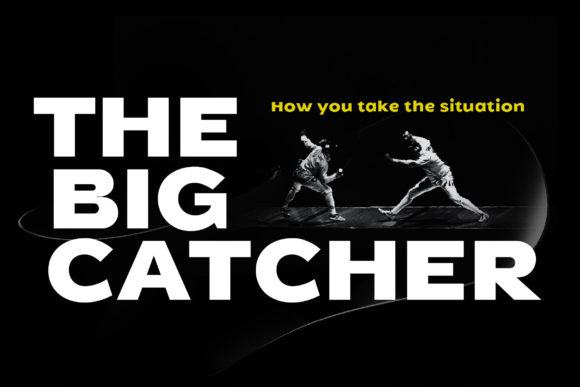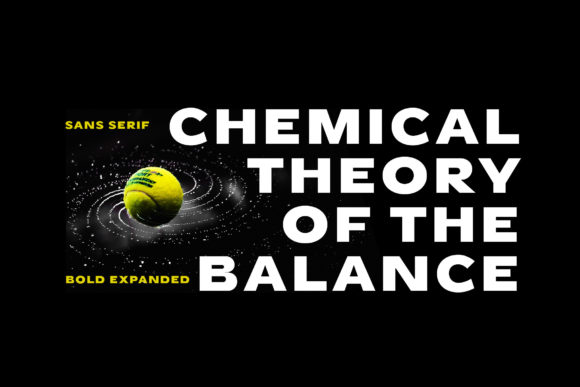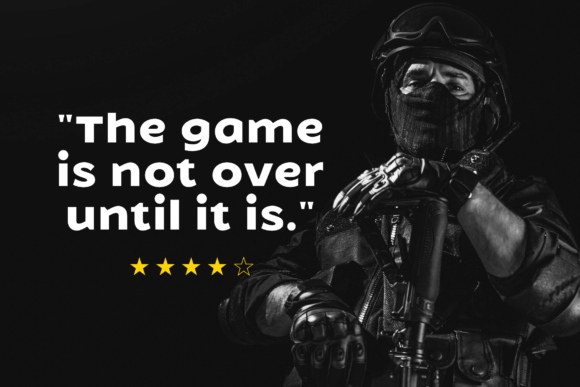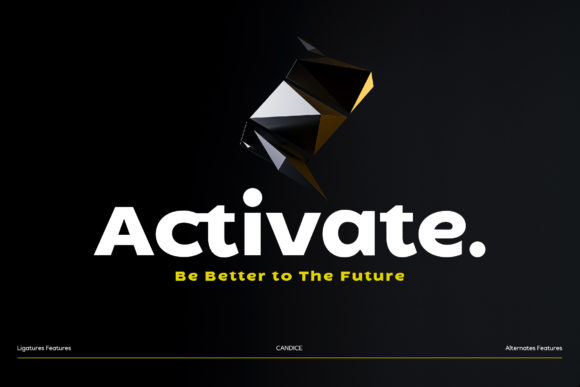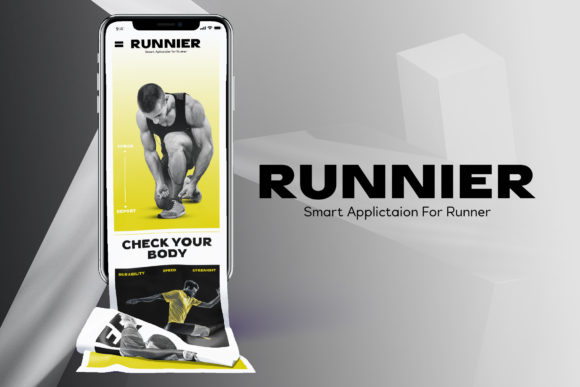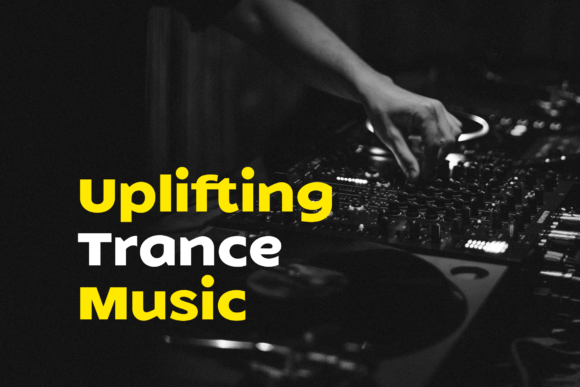
Candice Font: The Ultimate Sans Serif Display Font for Modern Designs
Are you looking for a font that can elevate your design projects to the next level? Look no further than Candice Font, a stunning sans serif display font that’s perfect for a wide range of applications. In this article, we’ll explore the features and benefits of Candice Font, and show you how it can be used to create amazing designs for your upcoming projects.
What is Candice Font?
Candice Font is a modern sans serif display font that’s specifically designed for creating bold and eye-catching designs. Its clean and sleek lines make it perfect for use in a variety of projects, from logo branding and editorial design to e-sport design, fitness gym branding, and more.
Key Features of Candice Font
Candice Font comes with a range of features that make it an ideal choice for designers and crafters. Some of its key features include:
- Unique and Modern Design: Candice Font has a unique and modern design that’s perfect for creating eye-catching designs.
- Sans Serif Style: The font features a clean and sleek sans serif style that’s perfect for use in a variety of projects.
- High-Quality Vectors: Candice Font comes with high-quality vectors that ensure crisp and clear text, even at large sizes.
- Easy to Read: The font is easy to read, even at small sizes, making it perfect for use in body text and captions.
Candice Font is perfect for a wide range of projects, including:
- Logo Branding: Use Candice Font to create a bold and eye-catching logo for your brand.
- Editorial Design: The font is perfect for use in editorial design, including magazines, newspapers, and books.
- E-Sport Design: Candice Font is a great choice for e-sport design, including logos, jerseys, and marketing materials.
- Fitness Gym Branding: Use Candice Font to create a bold and motivational brand for your fitness gym.
- Game/Gaming Industry: The font is perfect for use in the game/gaming industry, including game titles, logos, and marketing materials.
- Sports Racing: Candice Font is a great choice for sports racing designs, including logos, jerseys, and marketing materials.
- Supercar Brand: Use Candice Font to create a bold and eye-catching brand for your supercar company.
- E-Sport Branding: The font is perfect for use in e-sport branding, including logos, jerseys, and marketing materials.
- Music Poster: Candice Font is a great choice for music posters, including concert posters and album covers.
- Website Design: Use Candice Font to create a modern and eye-catching design for your website.
- Modern Advertising Design: The font is perfect for use in modern advertising design, including print ads, digital ads, and social media ads.
- Poster Quote: Candice Font is a great choice for poster quotes, including inspirational quotes and motivational posters.
- Book/Cover Title: Use Candice Font to create a bold and eye-catching title for your book or magazine cover.
- Special Events: The font is perfect for use in special events, including weddings, conferences, and festivals.
Why Choose Candice Font?
There are many reasons why you should choose Candice Font for your next design project. Here are just a few:
- Unique and Modern Design: Candice Font has a unique and modern design that’s sure to stand out from the crowd.
- High-Quality Vectors: The font comes with high-quality vectors that ensure crisp and clear text, even at large sizes.
- Easy to Read: Candice Font is easy to read, even at small sizes, making it perfect for use in body text and captions.
- Versatile: The font is versatile and can be used in a wide range of projects, from logo branding to editorial design.
In conclusion, Candice Font is a stunning sans serif display font that’s perfect for a wide range of design projects. Its unique and modern design, high-quality vectors, and ease of use make it an ideal choice for designers and crafters. Whether you’re looking to create a bold and eye-catching logo, a modern website design, or a motivational fitness gym brand, Candice Font is the perfect choice. So why wait? Download Candice Font today and take your design projects to the next level!